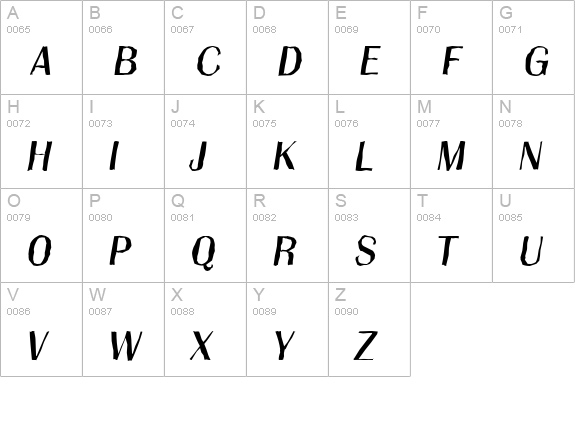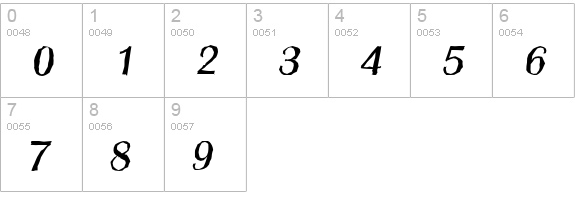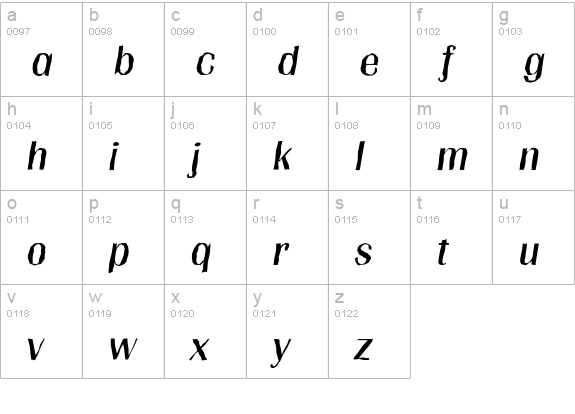
GrenobleAntique-Italic Font Details
GrenobleAntique-Italic is a distinctive, italic variant in the GrenobleAntique typeface family \xE2\x80\x94 well suited to design and typography projects.
GrenobleAntique-Italic font exudes elegance and sophistication with its timeless design. The delicate italic style adds a touch of class to any project, making it perfect for invitations, branding, and editorial designs. The graceful curves and refined details of GrenobleAntique-Italic font make it a standout choice for those seeking a touch of vintage charm in their typography. What's even better is that GrenobleAntique-Italic font is available for free download at FontsMarket.com. This means you can easily enhance your designs with this exquisite typeface without any cost. Don't miss out on the opportunity to add a touch of old-world beauty to your projects with GrenobleAntique-Italic font, now available for free at FontsMarket.com.